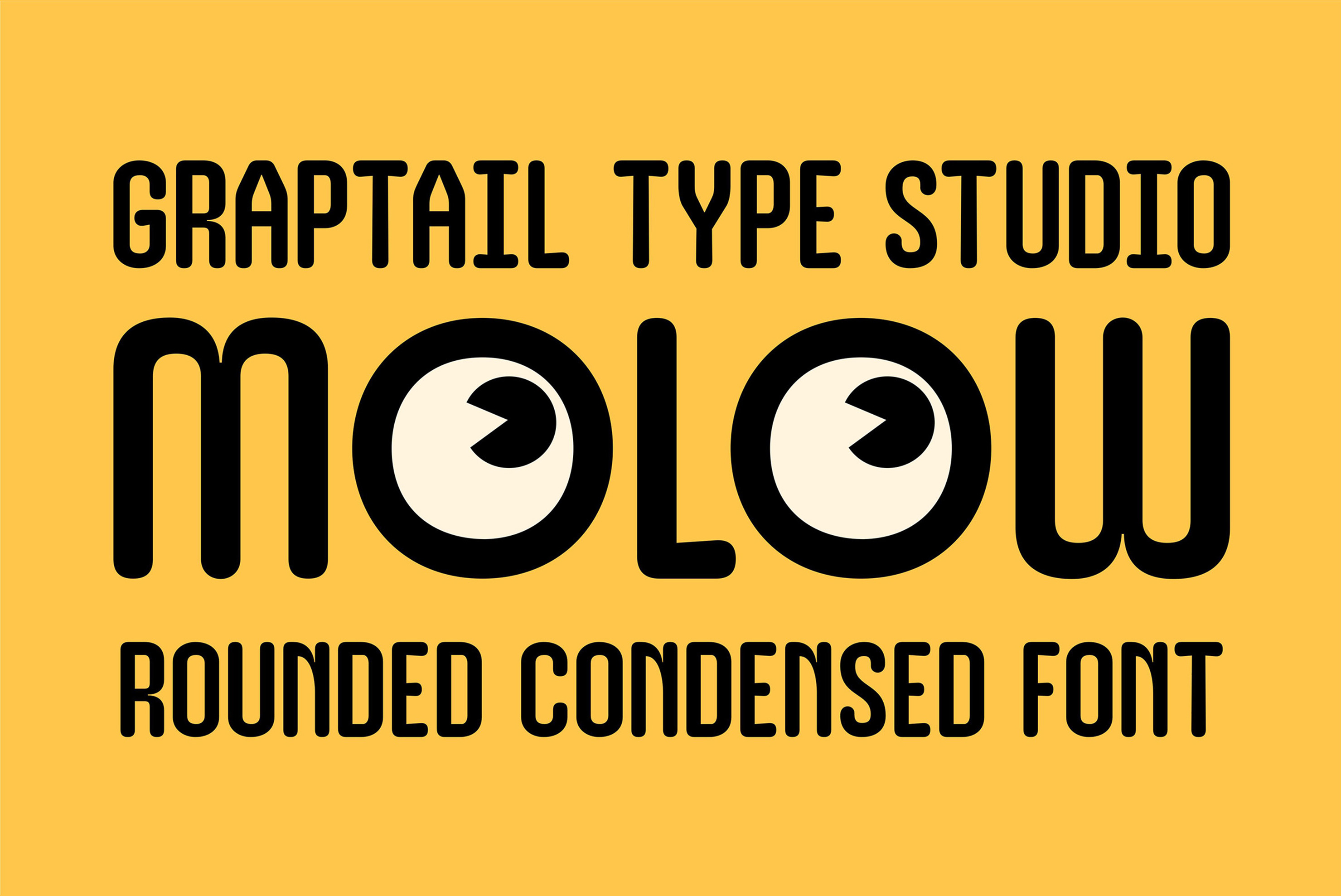
Molow | Rounded Condensed Font
Molow - Rounded Condensed FontMolow – Rounded Condensed Font
Playful Shape. Bold Personality.
Molow is a rounded condensed font that blends a modern, fun, and expressive style in every letter. Its main feature lies in the five unique small “o” variations, each designed to resemble eye-like shapes, adding character and emotion to your typography.
Perfect for projects that need a friendly yet striking visual touch, Molow works beautifully for:
- Packaging design
- Movie titles and posters
- T-shirt graphics
- Character or mascot branding
- Illustrative and editorial design.
With its playful forms and clean structure, Molow strikes the perfect balance between fun and professionalism, making your text look alive and memorable.